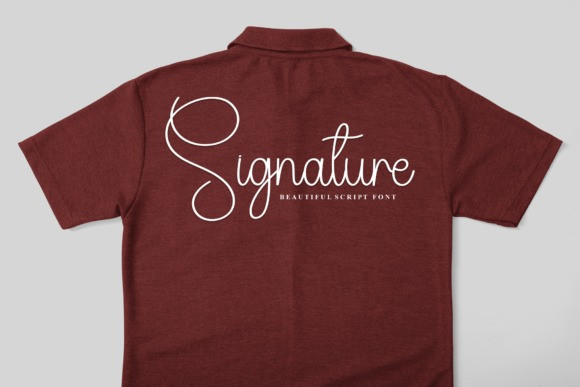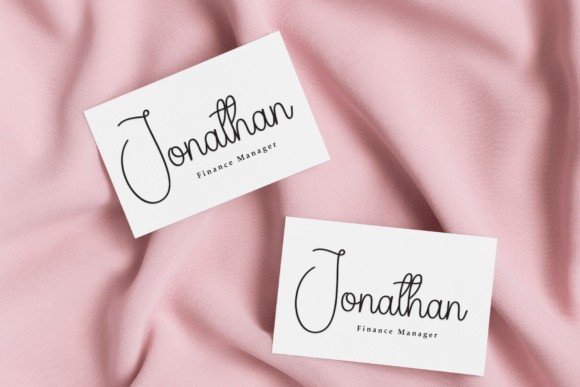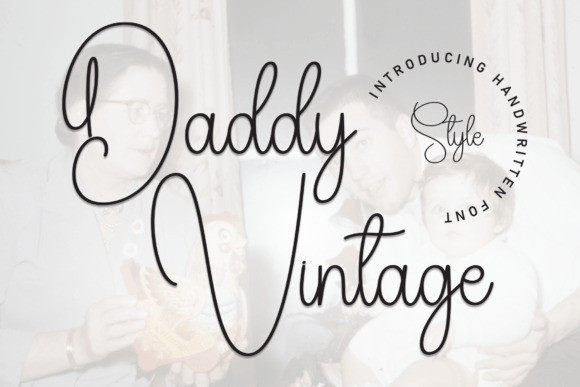
Daddy Vintage Handwriting Font
Daddy Vintage Handwriting Font a stylish handwritten font, exudes sophistication with its gracefully crafted letterforms. The fluid strokes and subtle details lend an air of refined charm, making it ideal for projects that demand a touch of class. Elevate your designs with Daddy Vintage, where style meets handwritten grace.